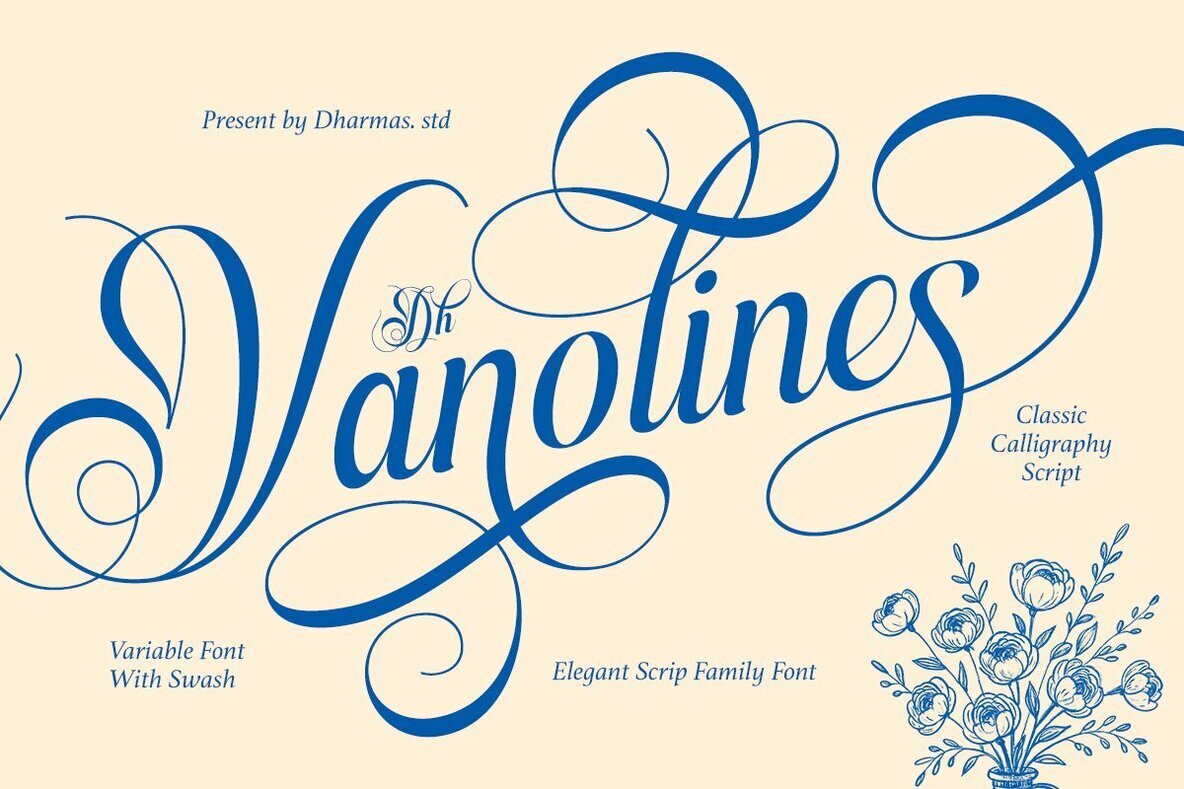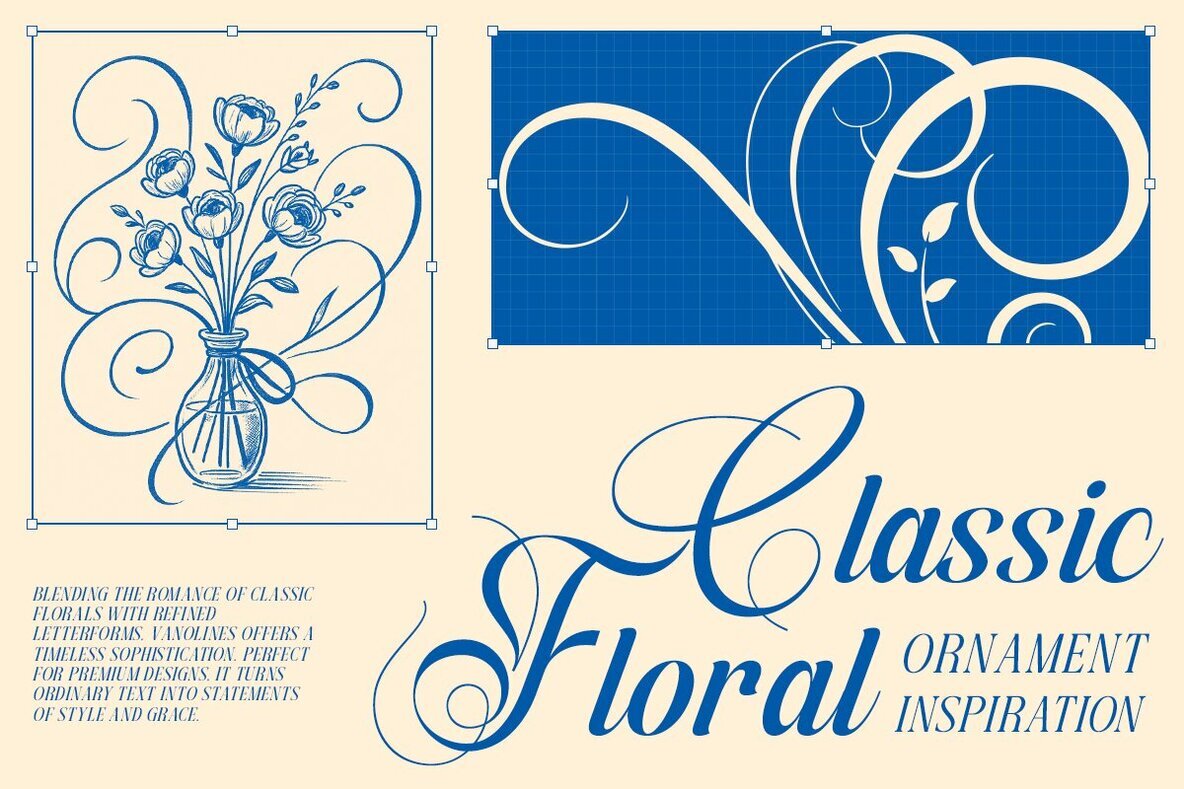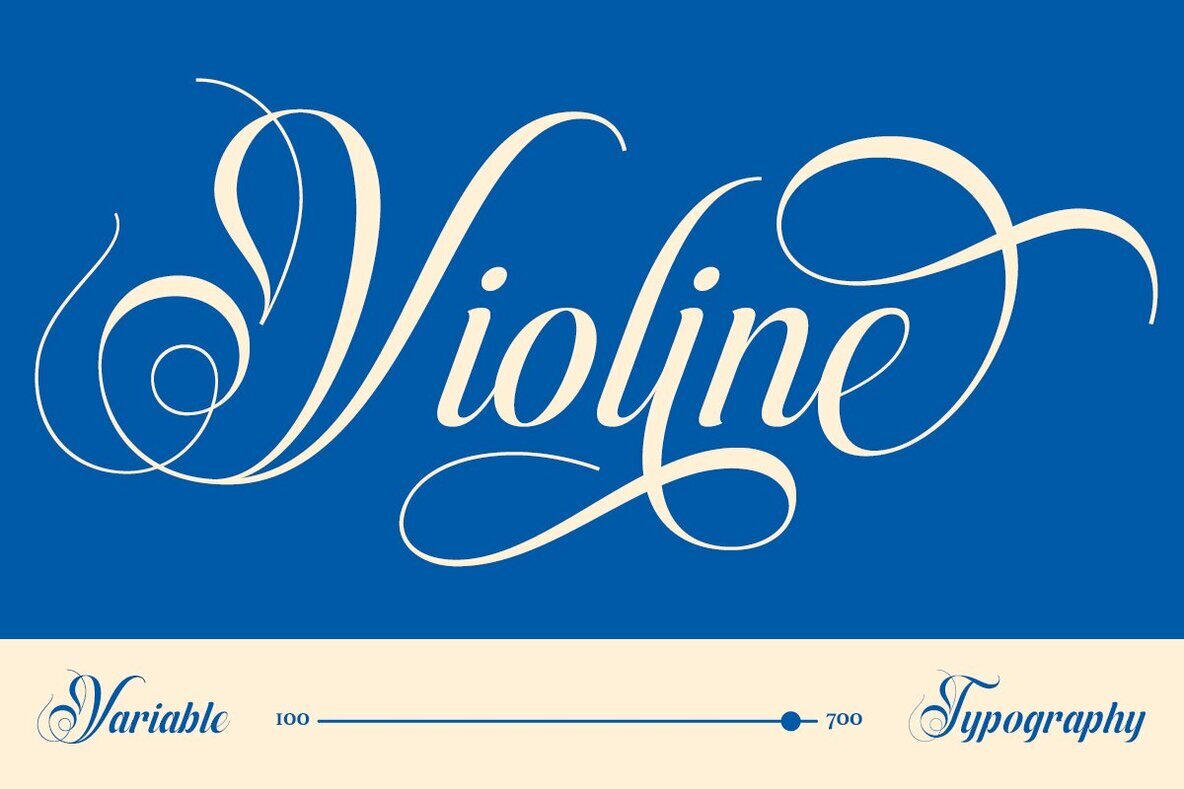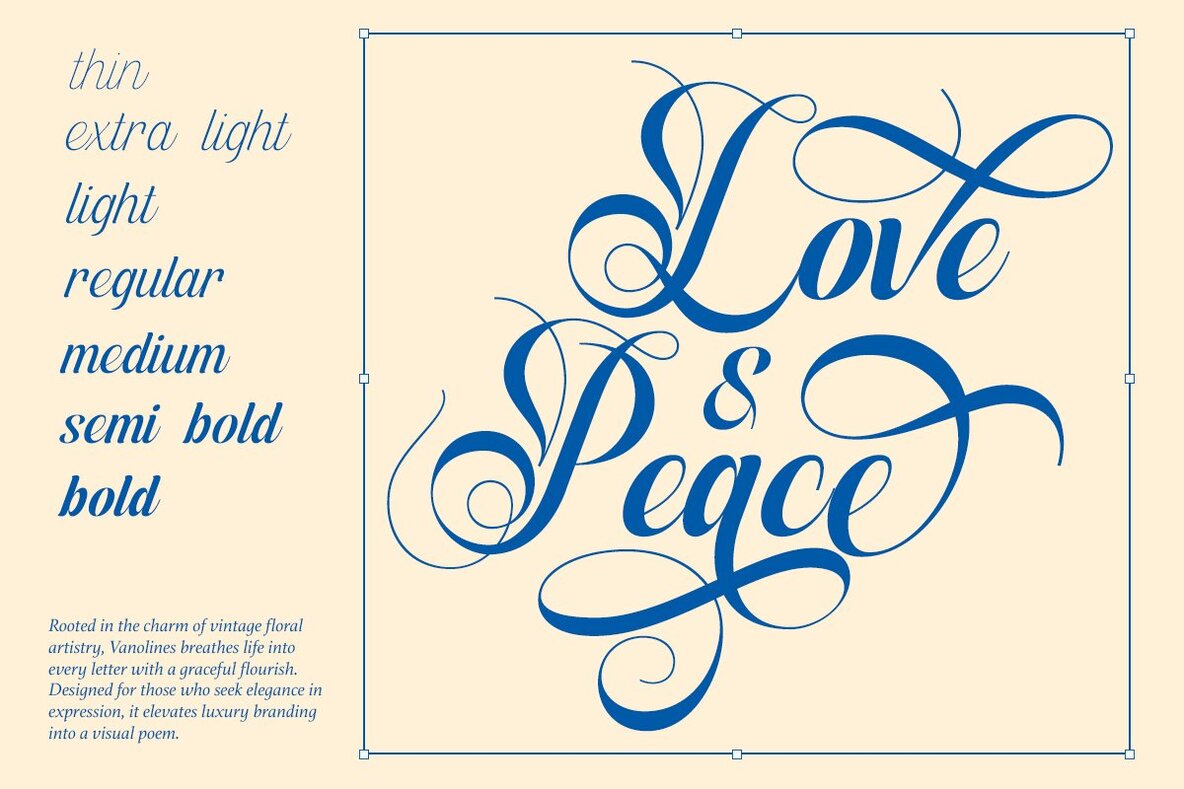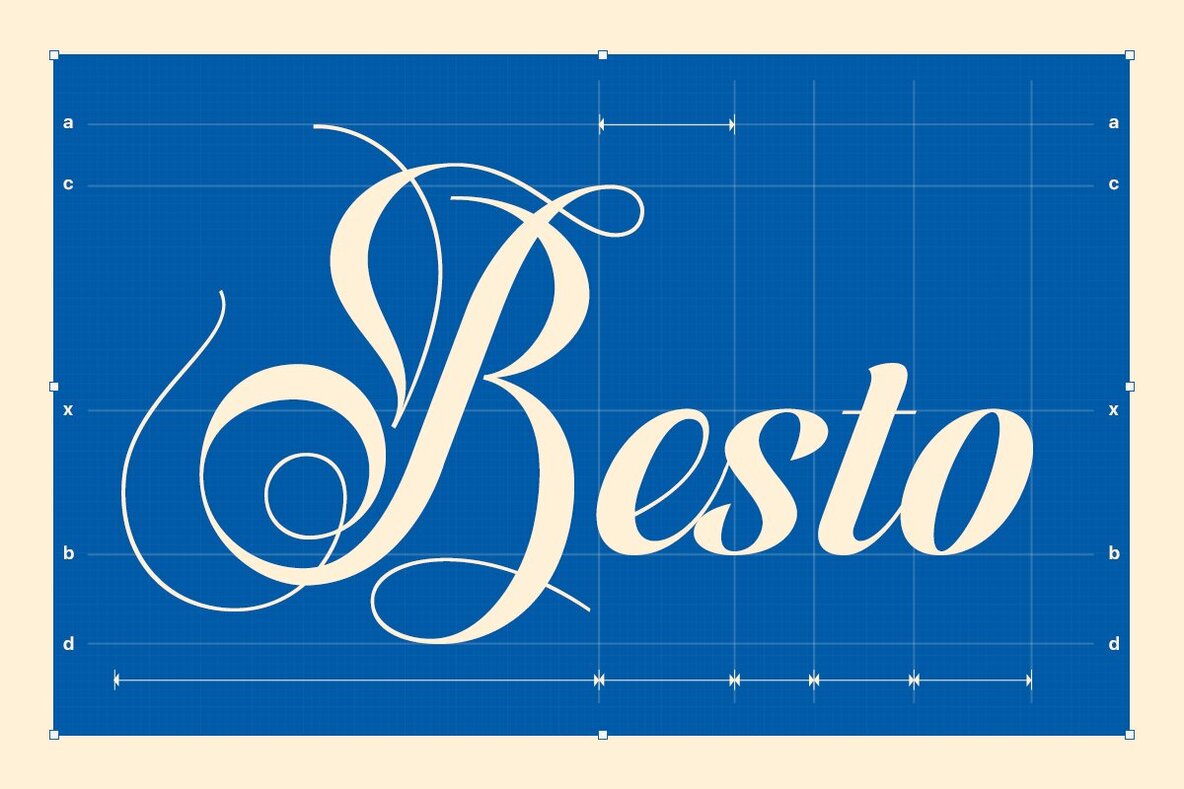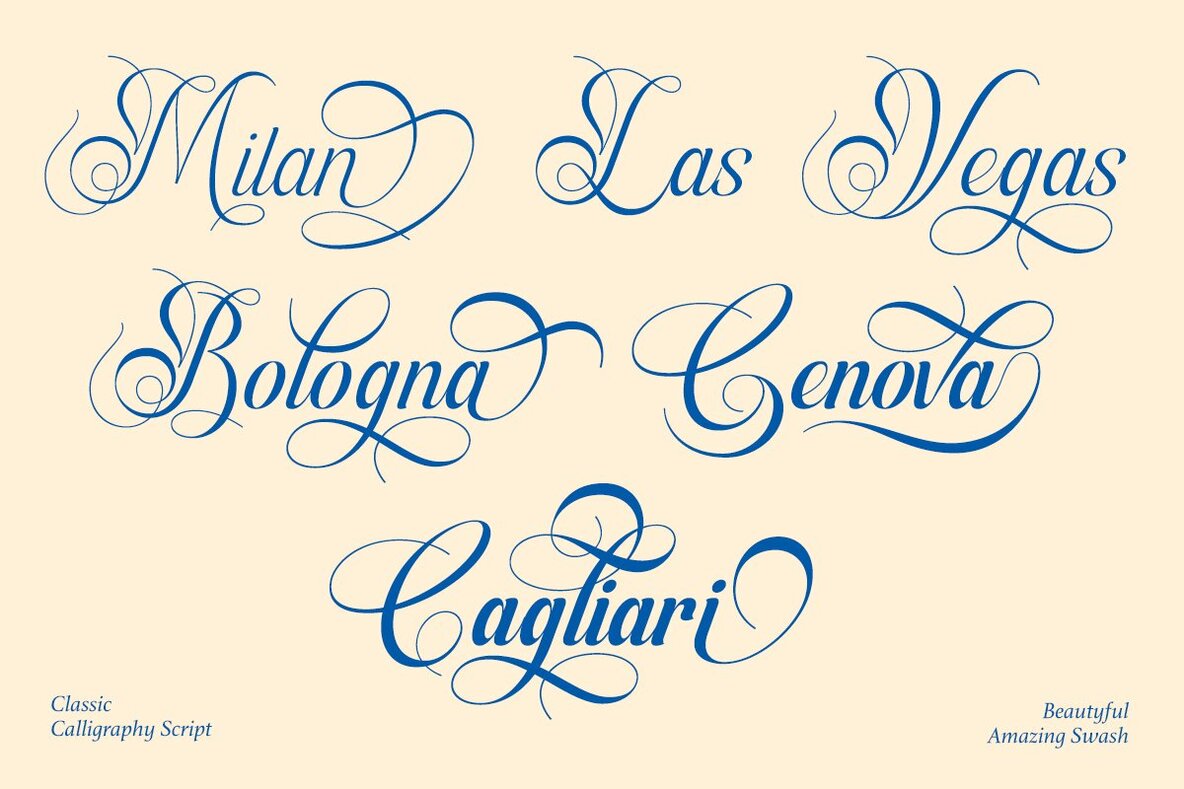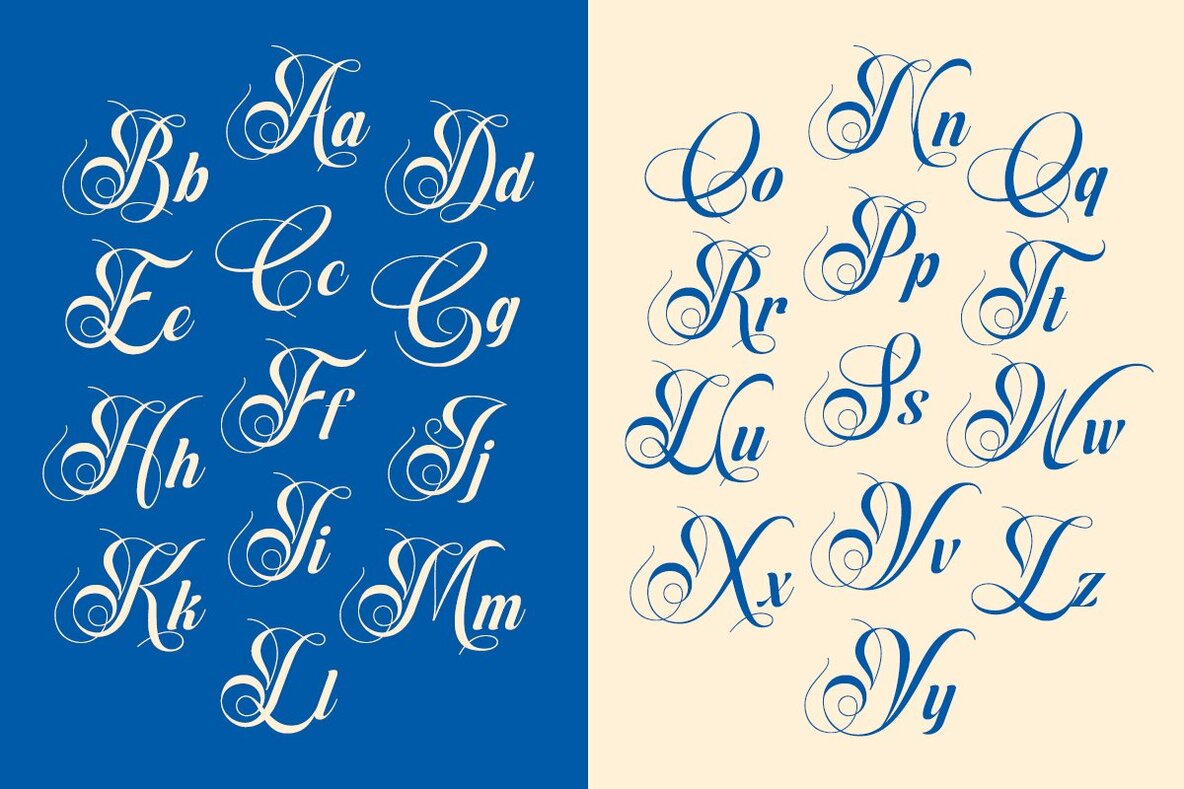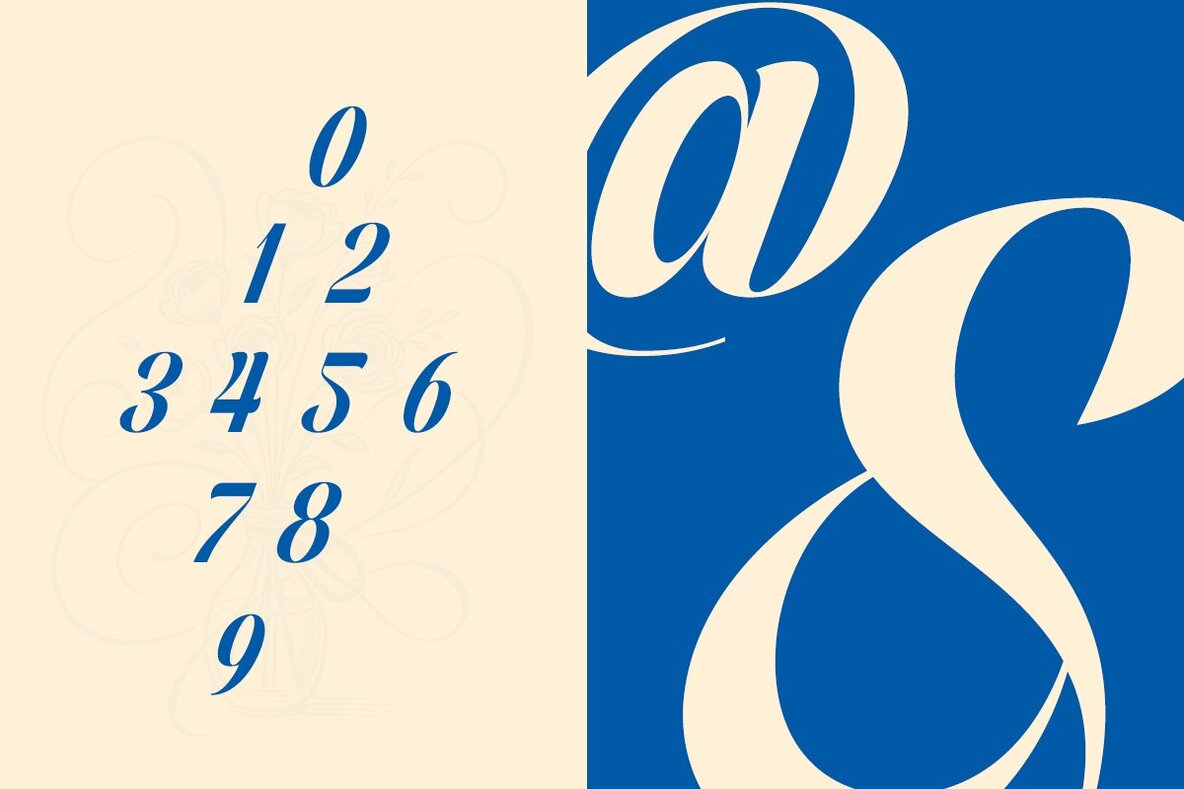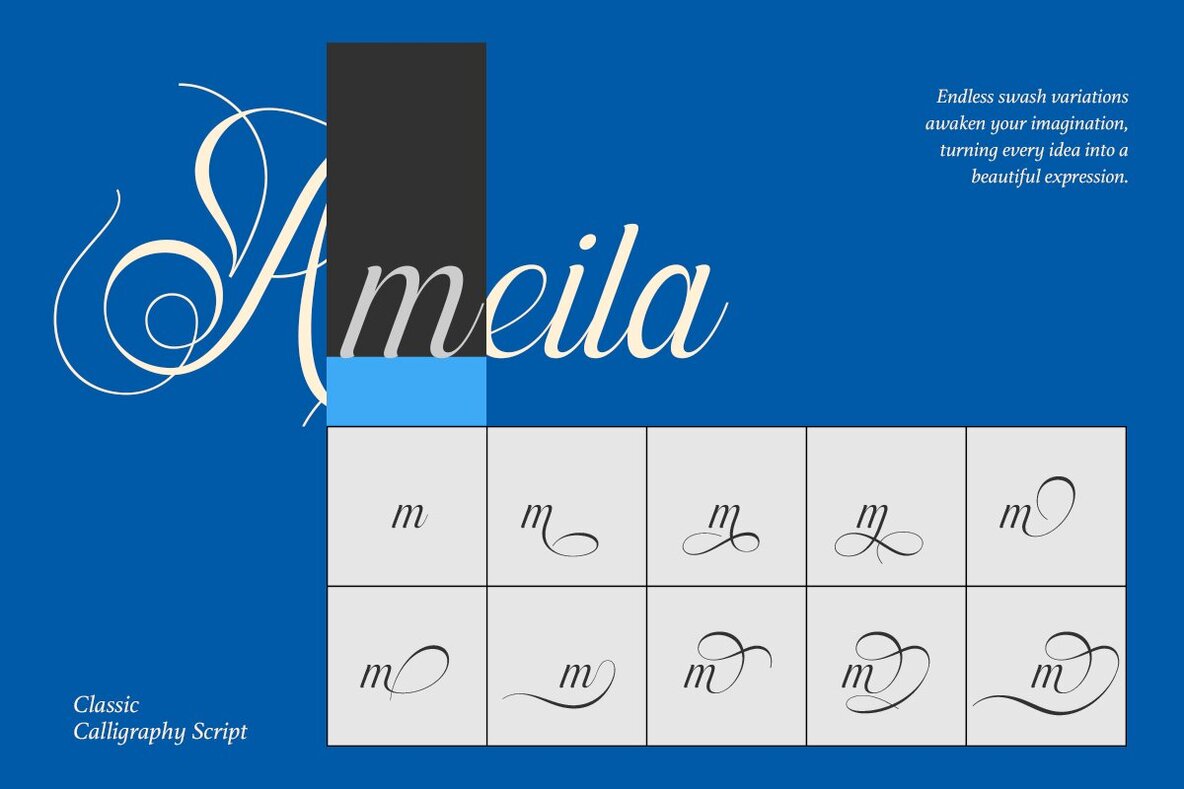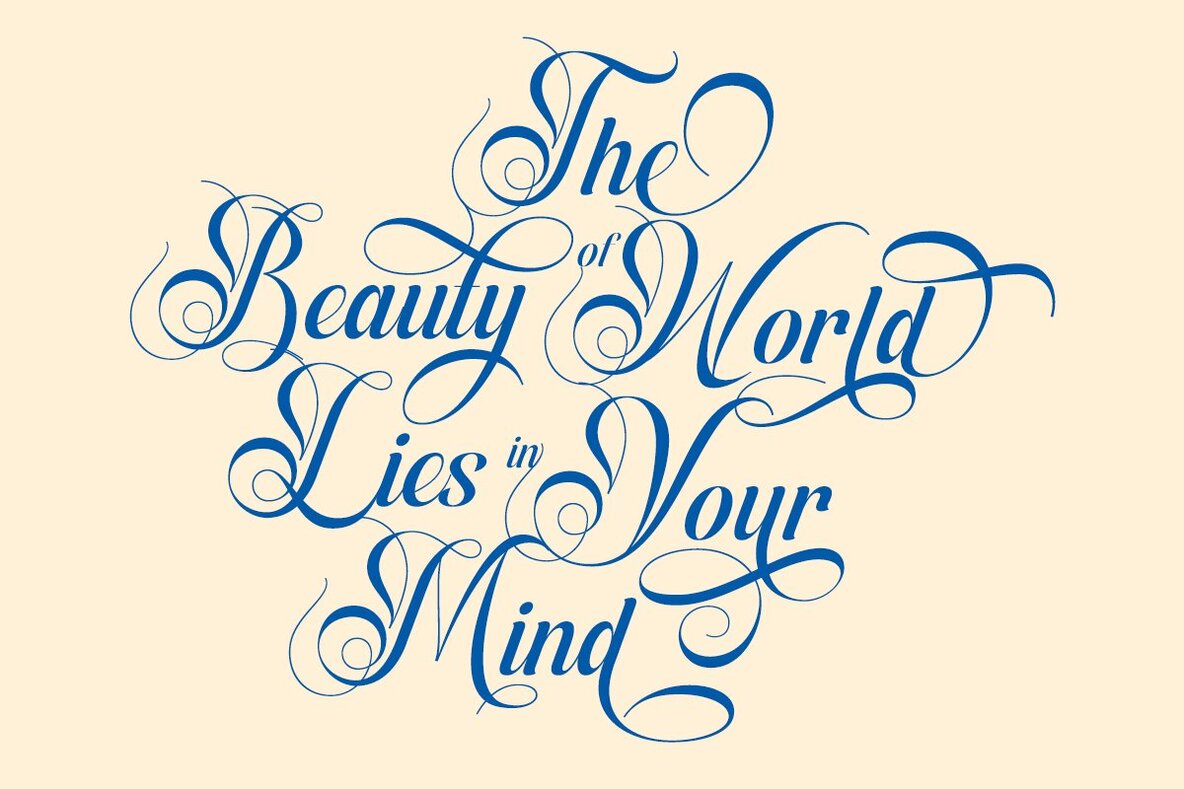
Dh Vanolines Font
Elevate your design projects with Dh Vanolines, a stunning calligraphy script font that exudes timeless elegance and artistic refinement. With its flowing curves and dramatic swashes, this typeface brings romance and sophistication to every creation. The versatility of its 7 refined styles, ranging from Thin to Bold, caters to both delicate and bold designs, making it perfect for wedding invitations, upscale branding, editorial headlines, and luxury packaging.Graceful Elegance with Dh Vanolines
Versatile Features and Multilingual Support